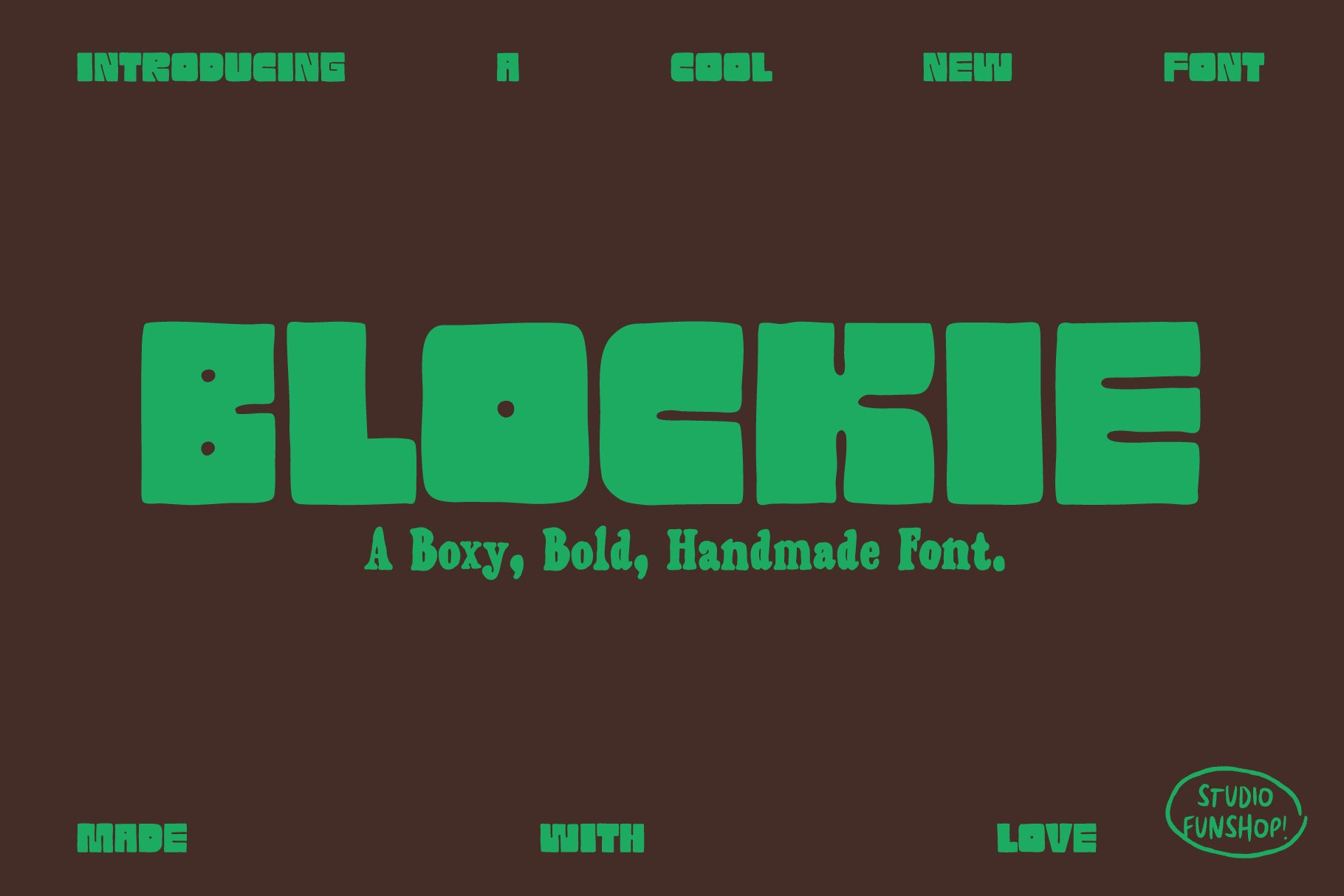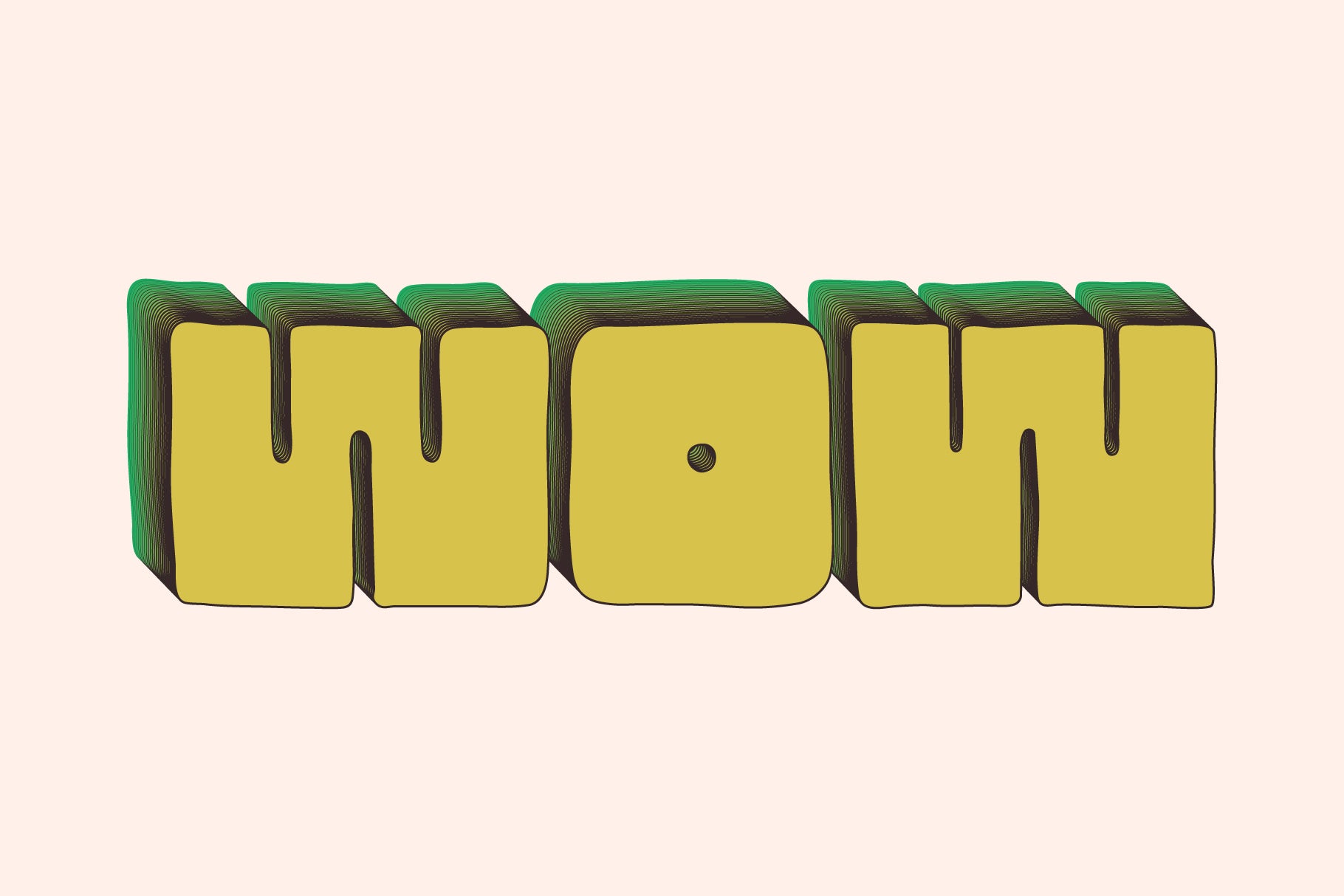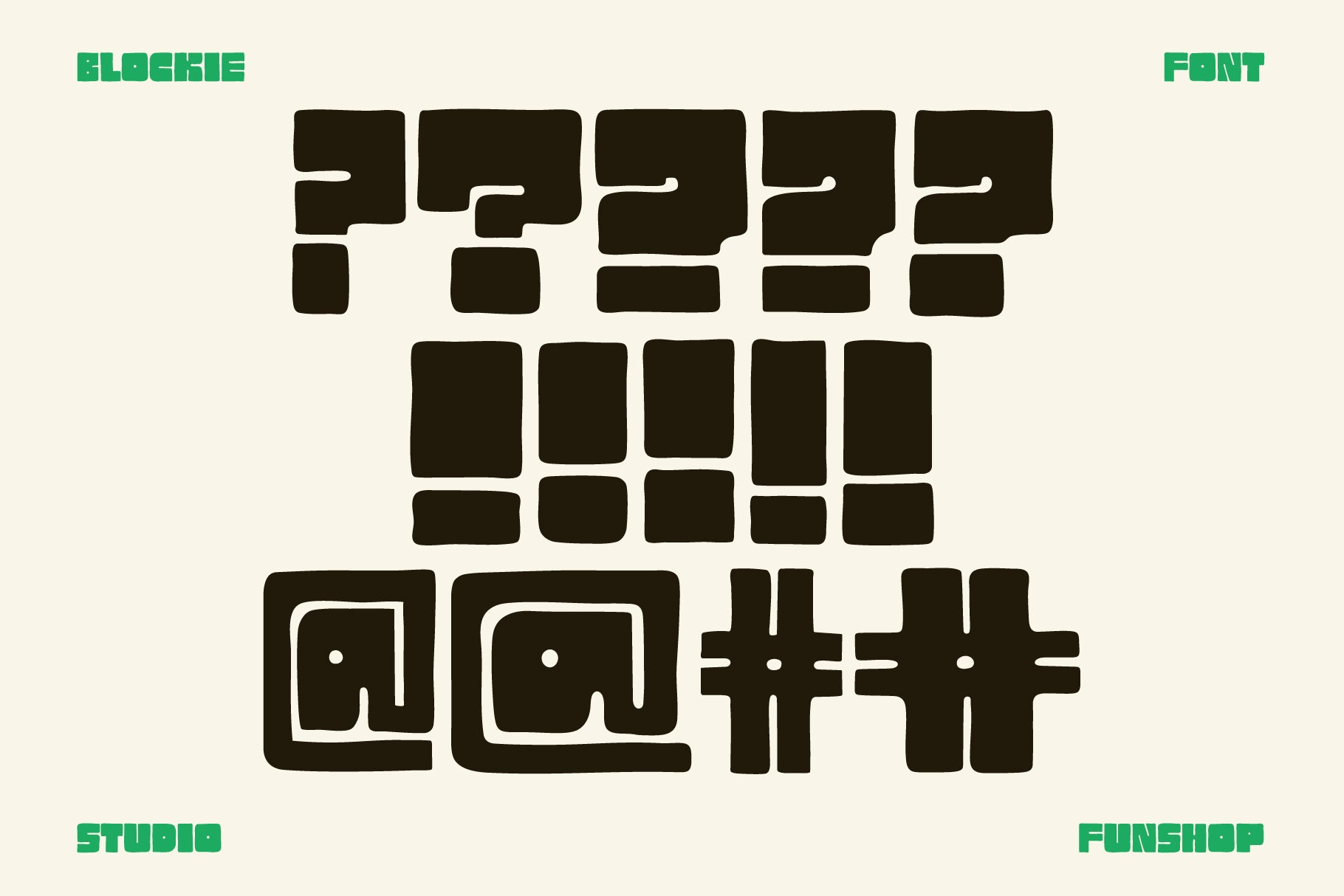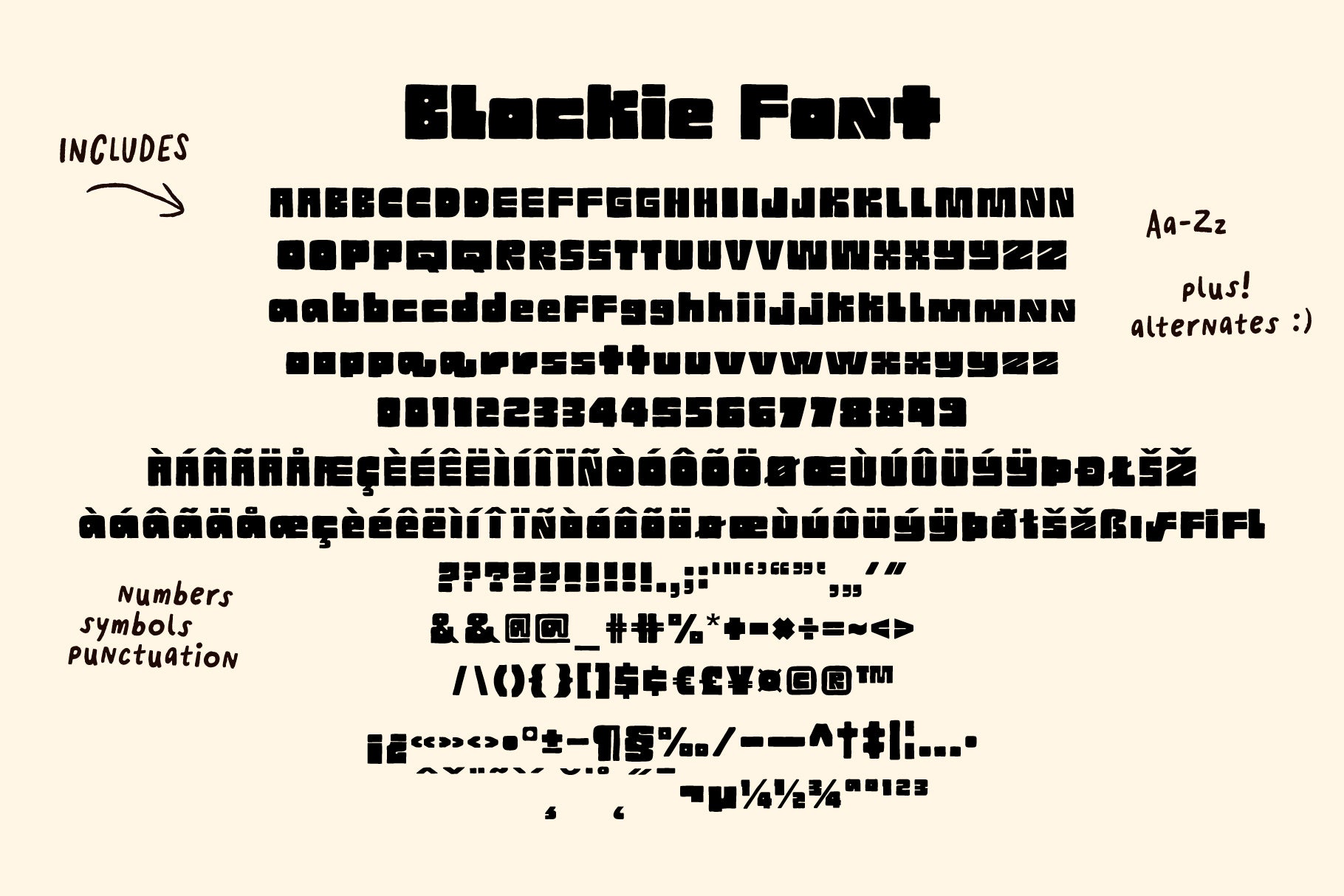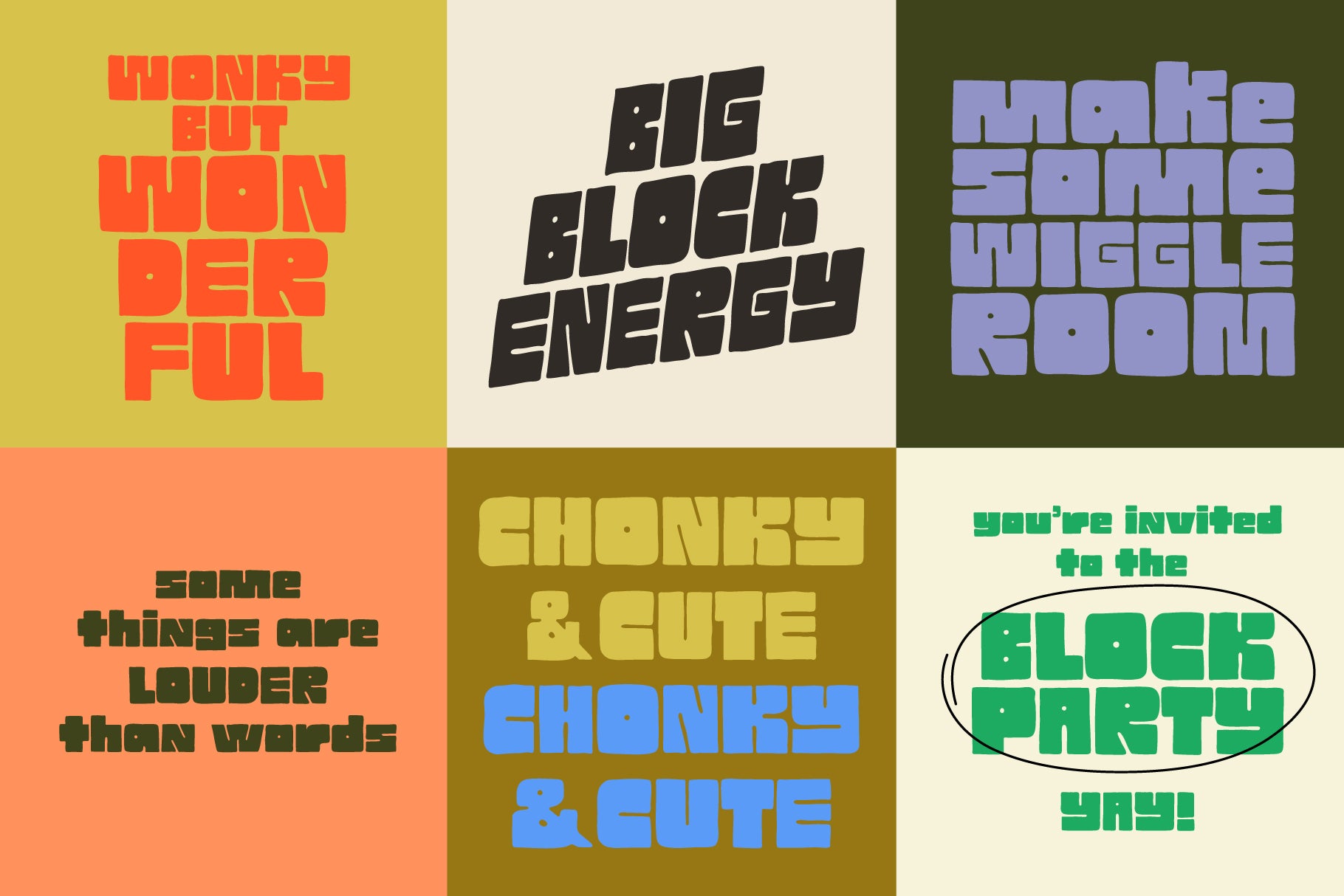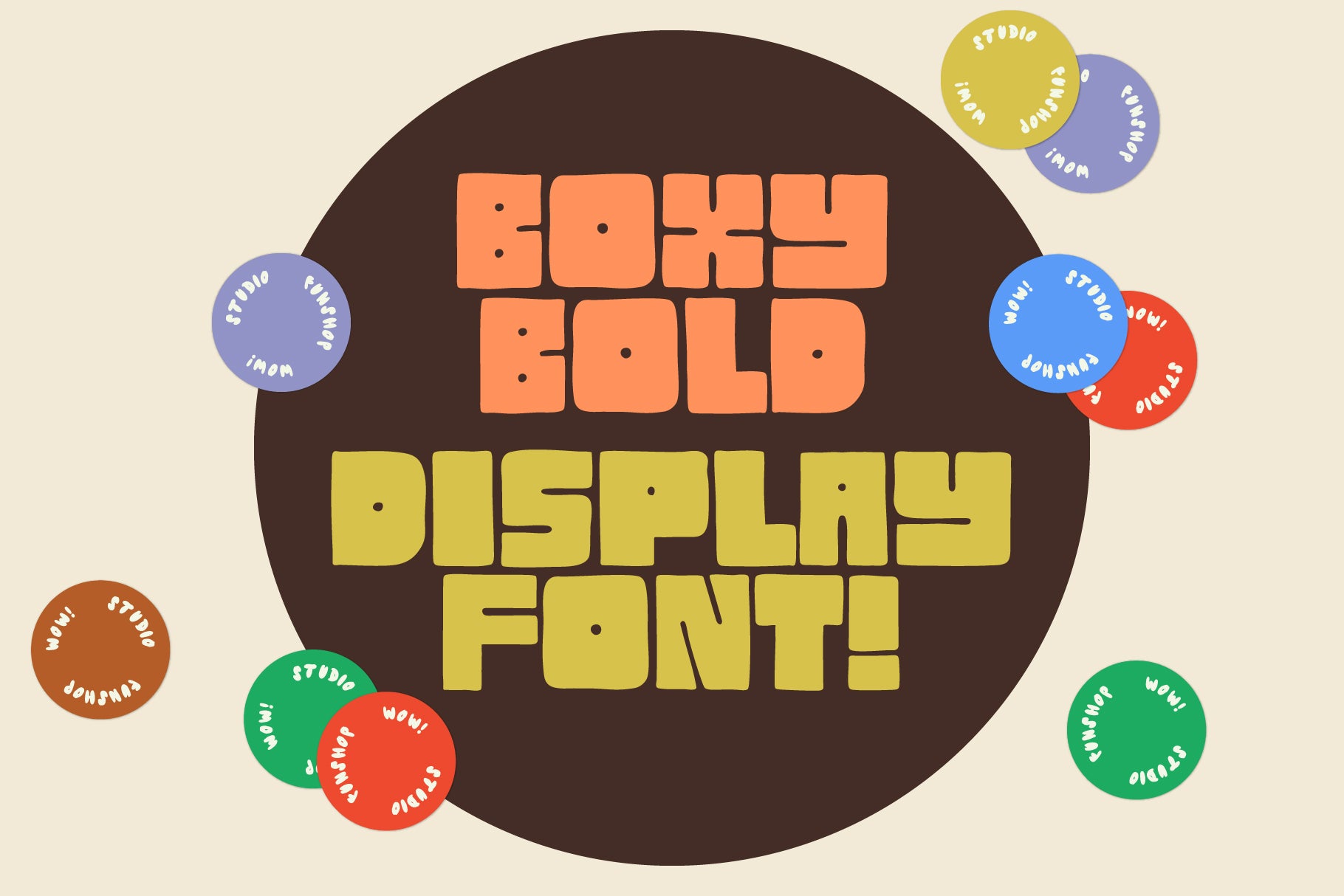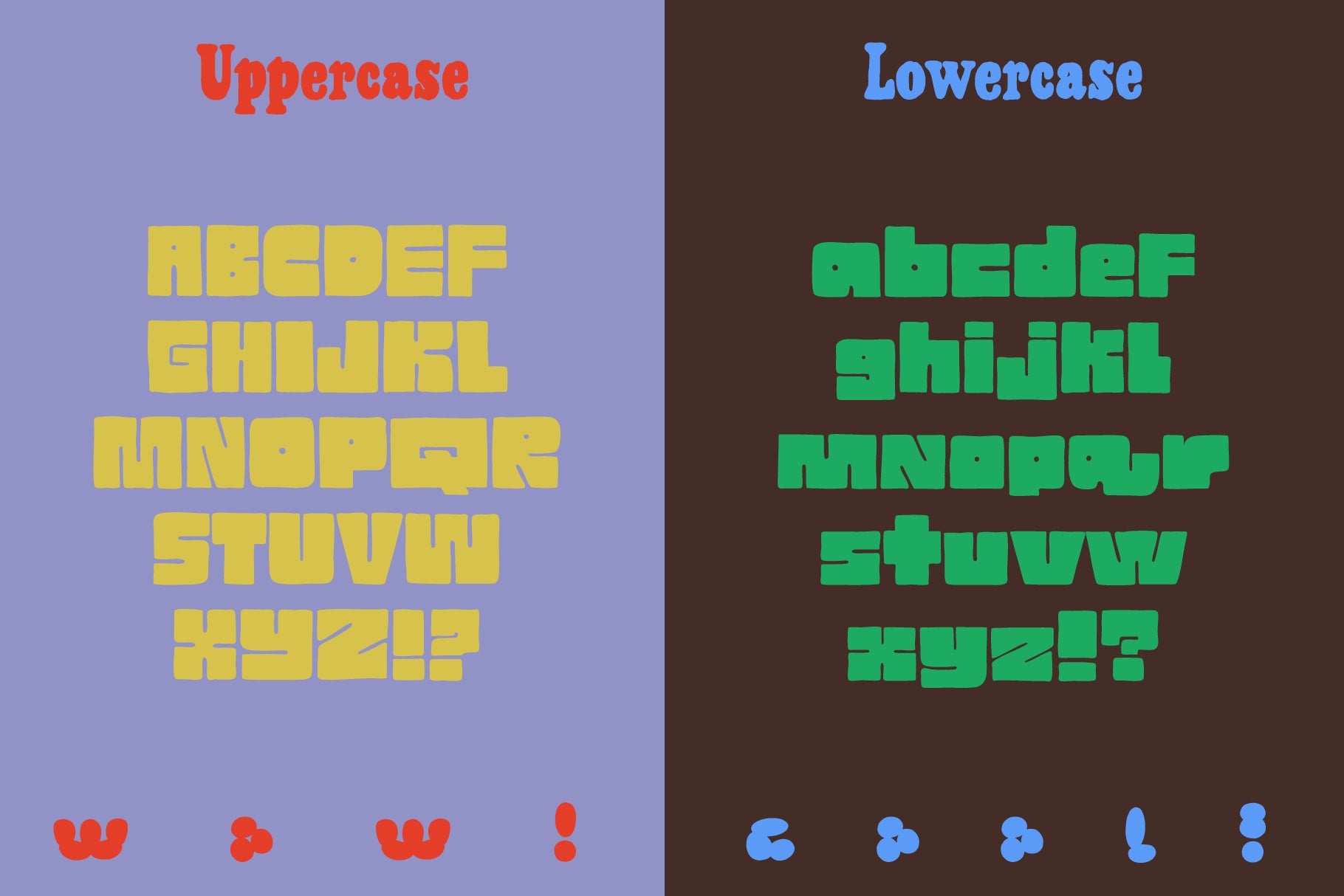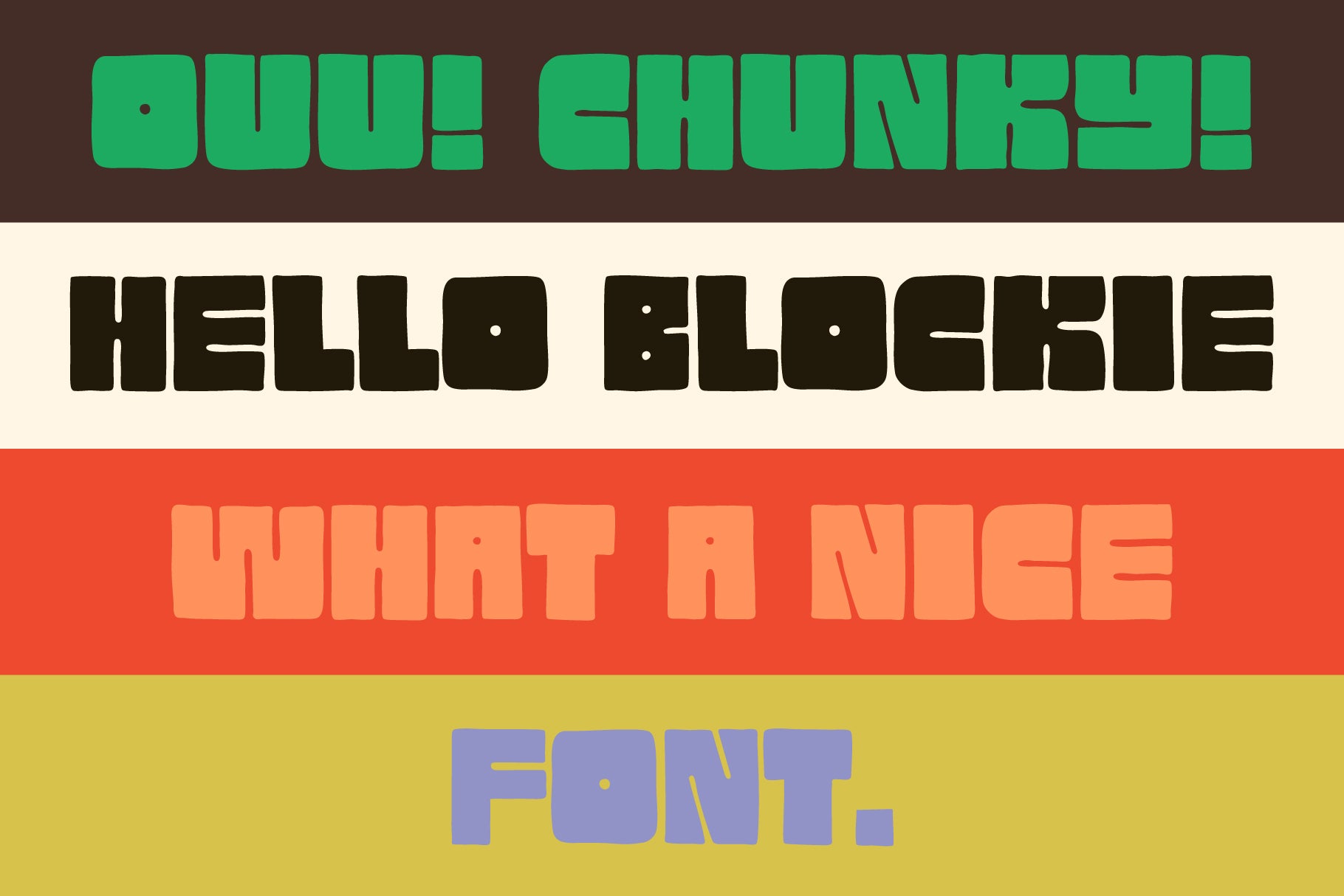
Blockie - Hand-lettered Display Font
A chunky, hand-drawn font with a bold personality and wiggly edges. Its playful, imperfect lines make every word feel full of energy and character. Whether you’re designing a logo, poster, or social media graphic, Blockie brings a fun handmade look that stands out.
With uppercase and lowercase options, alternates for variety, and multilingual support, this font gives you the freedom to keep things quirky and creative.
Perfect for eye-catching branding, bold headlines, funky packaging, creative quotes, and anything that needs a splash of personality.